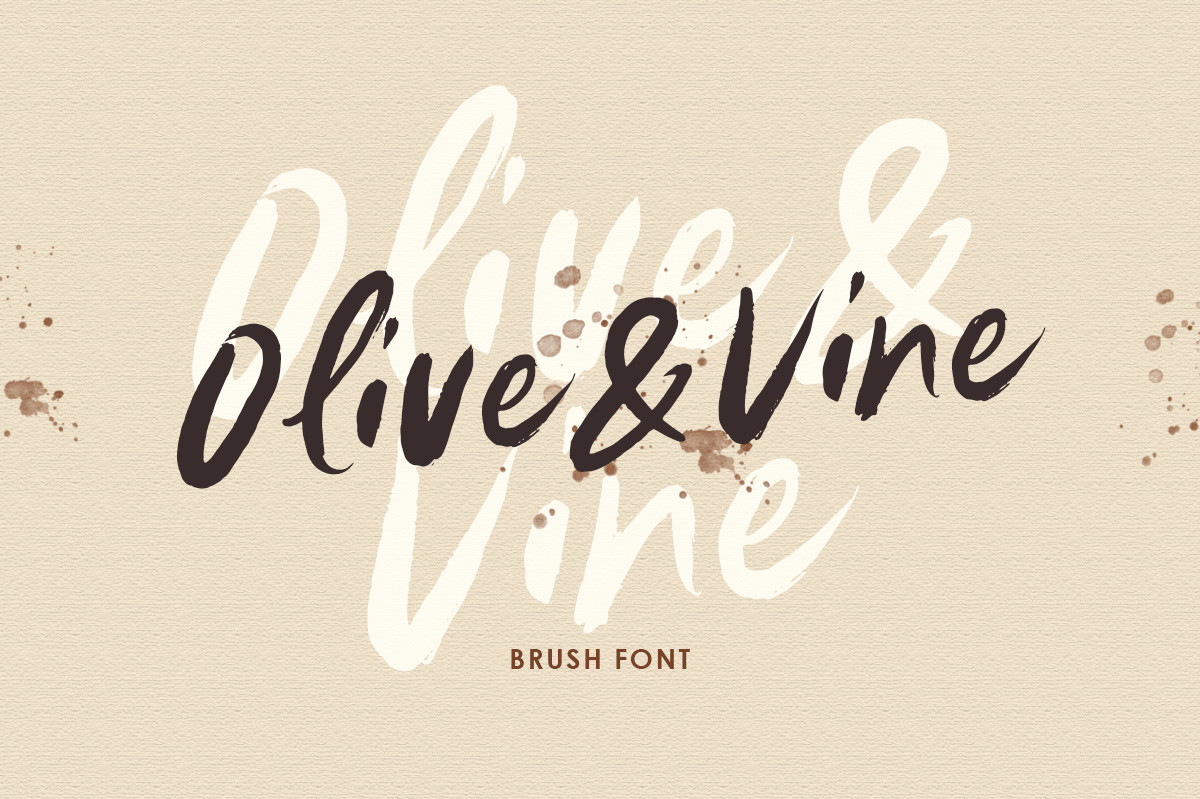
Olive Vine Font
This organic and Mediterranean-inspired typeface is perfect for olive oil company branding, vineyard restaurant signage, Mediterranean cuisine packaging, organic food store logos, farm-to-table establishments, artisanal product labels, sustainable agriculture marketing, gourmet food branding, and rustic winery materials that require a natural, earth-connected aesthetic.
Olive Vine Font brings excitement to design projects with its graceful, vine-like character and Mediterranean elegance that captures the essence of ancient olive groves and timeless agricultural beauty. The font features flowing letterforms with organic curves that evoke feelings of natural growth, Mediterranean sunshine, and harvest abundance. Its earthy sophistication and botanical presence make it an ideal choice for brands that want to communicate organic authenticity, Mediterranean heritage, and natural quality in their wholesome communications.
Olive Vine Font family includes various organic styles: Light, Regular, Medium, Bold, Rustic, Condensed, and Harvest versions. Each variant maintains the font's distinctive Mediterranean character while providing designers with complete flexibility for creating natural agricultural branding systems. The family also features vine-inspired ornaments, olive branch decorative elements, botanical ligatures, and Mediterranean symbols that enhance the overall organic aesthetic.
When searching for Mediterranean typography solutions, Olive Vine Font Free Download offers an unmatched combination of natural beauty and sophisticated elegance that perfectly embodies the spirit of Mediterranean agriculture and organic farming. Professional designers love this font for its ability to create instant connection with nature while maintaining excellent readability across various agricultural contexts. The typeface works beautifully from intimate artisanal labels to large-scale vineyard signage, preserving its organic charm at every natural application.
The font's Mediterranean excellence includes carefully crafted flowing connections that mimic vine growth, earthy spacing that creates visual harmony with nature, and organic variations that maintain agricultural authenticity while ensuring professional presentation. Whether you're designing for organic food producers, Mediterranean restaurants, or sustainable agriculture companies, this font delivers the natural touch that connects audiences with authentic agricultural heritage and wholesome living.